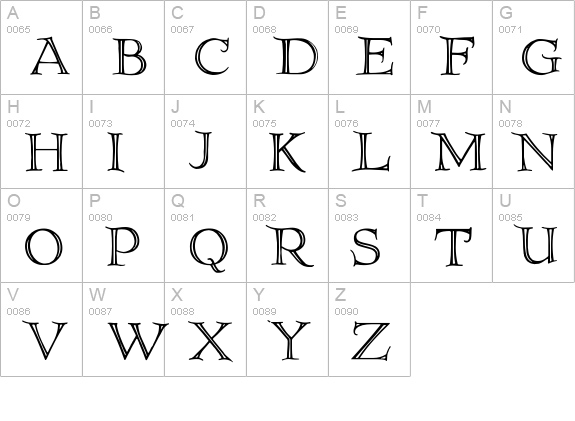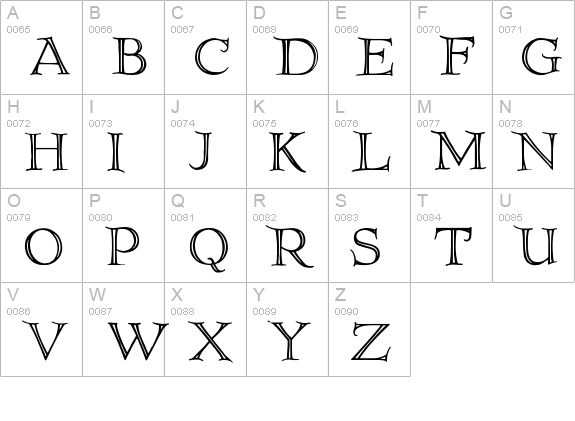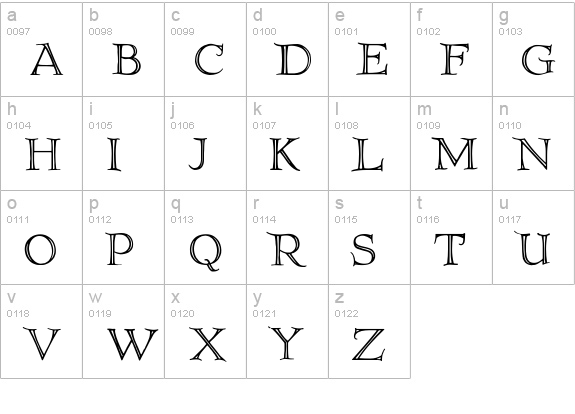
Priory font is a modern and elegant typeface that exudes sophistication and style. Its sleek lines and contemporary design make it perfect for a wide range of creative projects, from branding to marketing materials. Priory font offers a unique blend of classic and modern elements, making it versatile and eye-catching. What sets Priory font apart is that it is not only beautifully crafted but also free to use. That's right - this stunning font is freely available to download at FontsMarket.com. Whether you're a designer, a business owner, or a creative enthusiast, Priory font is sure to elevate your work and leave a lasting impression. Don't miss out on the opportunity to add this gorgeous font to your collection today.